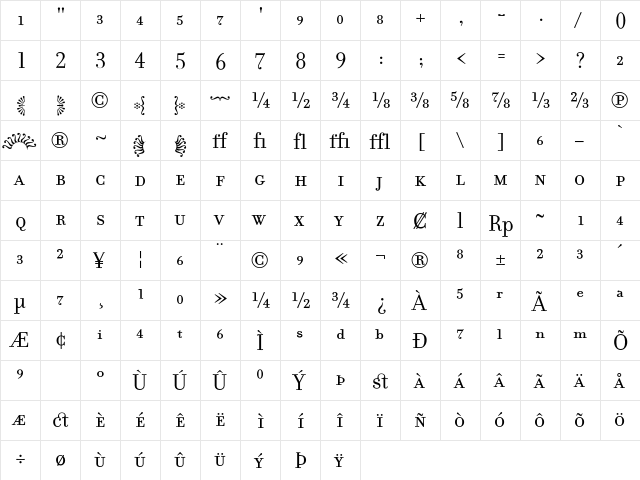
FilosofiaFractions Regular
Design Context for FilosofiaFractions Typeface
FilosofiaFractions takes a measured approach to typography — its balanced proportions and neutral character make it a reliable workhorse for both digital and print work.